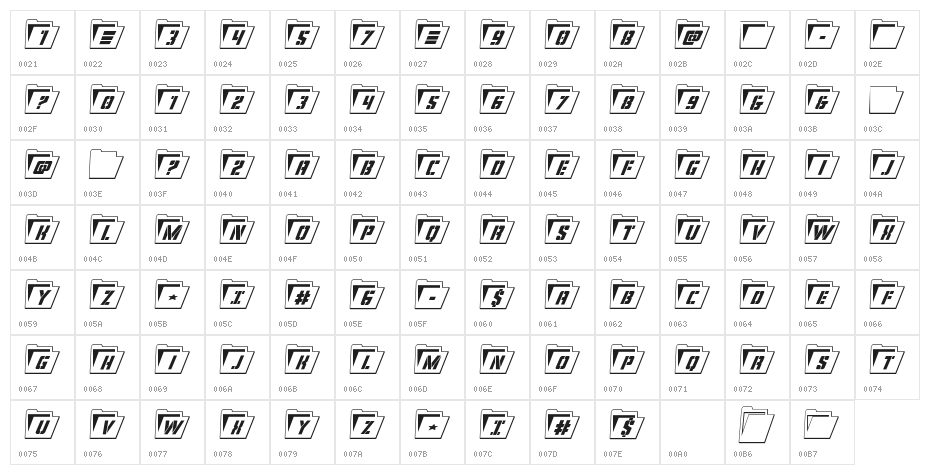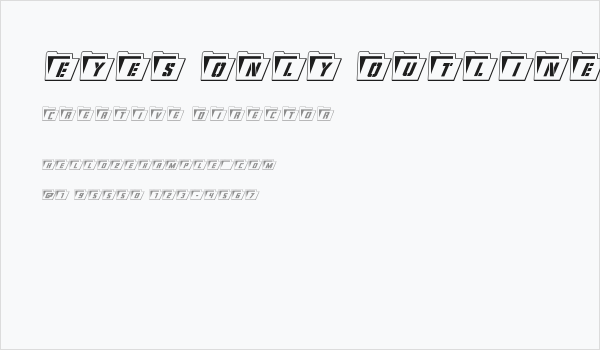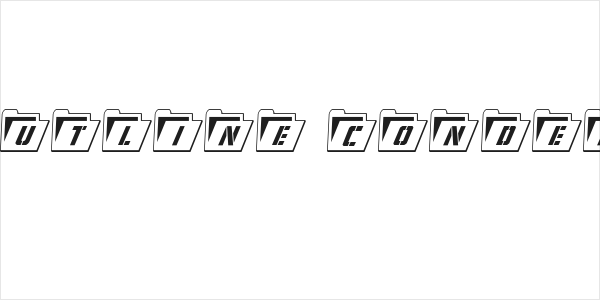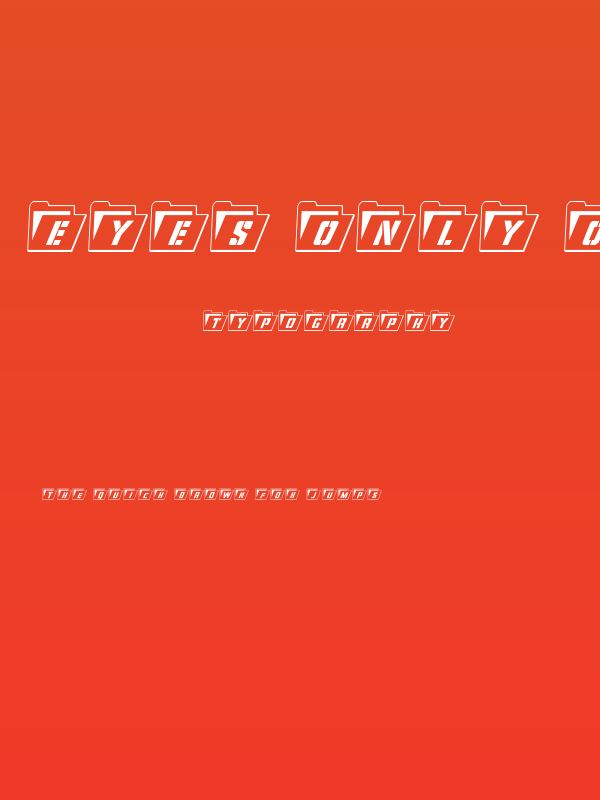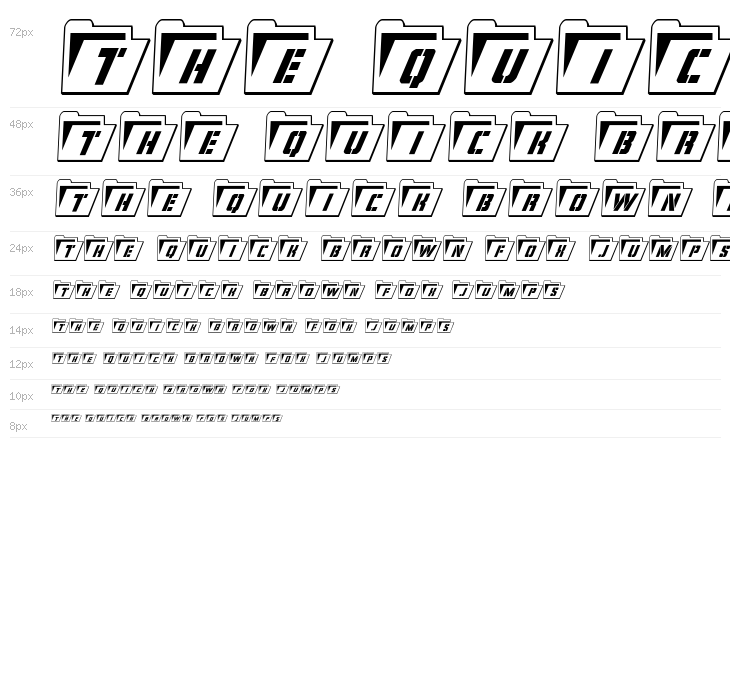
Eyes Only Outline Condensed Italic Font
Eyes Only Outline Condensed Italic Description
This font features a unique design where each character is enclosed within a folder-like outline, giving it a distinct and modern appearance. The letters are italicized, adding a dynamic and forward-leaning aesthetic. The condensed nature of the font allows for efficient use of space, making it suitable for headlines or titles where space is limited. The bold strokes within the outlined shapes create a strong visual impact, ensuring that the text stands out. The overall style is decorative and contemporary, ideal for projects that require a modern and edgy look.
| Proposed Projects | Ideal for tech-related branding, modern posters, digital media, and creative projects that require a futuristic touch. |